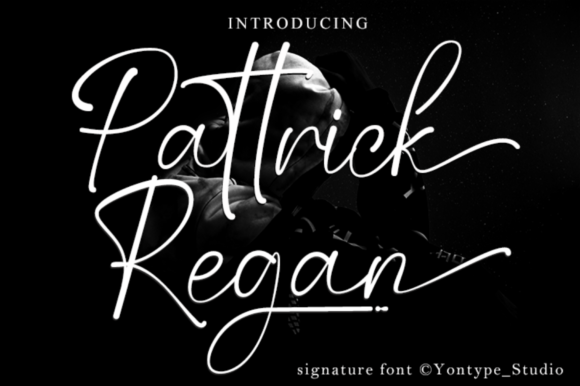
Prepare yourself to be captivated by the Pattrick Regan Font, a script font that exudes a timeless charm and elegant aesthetics. Picture yourself creating stunning posters for your music videos, with words that dance and flow, perfectly complementing the rhythm of your melodies. This font is your secret weapon to make an unforgettable impact, leaving your audience spellbound.
Unleash your creativity and let Pattrick Regan's delicate strokes bring your designs to life. Its clean, thin, and smooth vibe adds a touch of sophistication that elevates your projects. Whether it's a music video, a website, or a social media post, this font seamlessly blends with your vision, enhancing the overall impact of your message.
Dive into the world of Pattrick Regan and unlock a treasure trove of possibilities. Design logos that exude elegance, craft captivating invitations that leave a lasting impression, or create social media posts that stand out from the crowd. The versatility of this font knows no bounds, allowing you to explore your creative side and leave your audience in awe.
With its PUA encoding, accessing all the glyphs and swashes is a breeze. Open up a world of customization and let your imagination soar. Explore endless combinations to create unique and captivating designs that reflect your individual style.
Don't settle for ordinary fonts that blend into the background. Embrace the exquisite beauty of Pattrick Regan and watch your designs transform into masterpieces. Its delicate strokes and timeless charm will captivate your audience, leaving them mesmerized by your creativity.